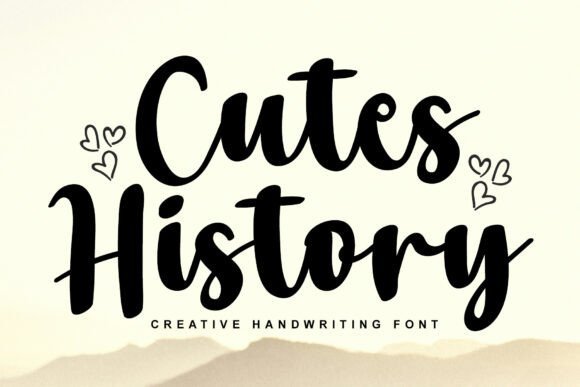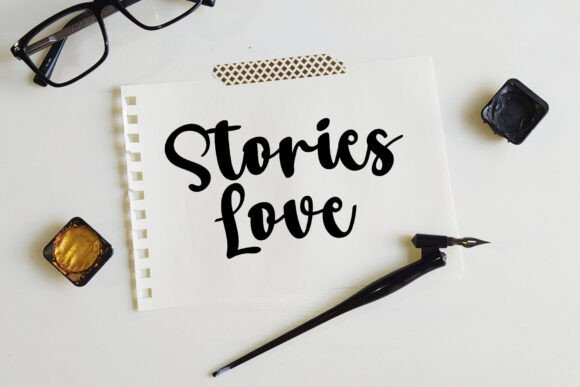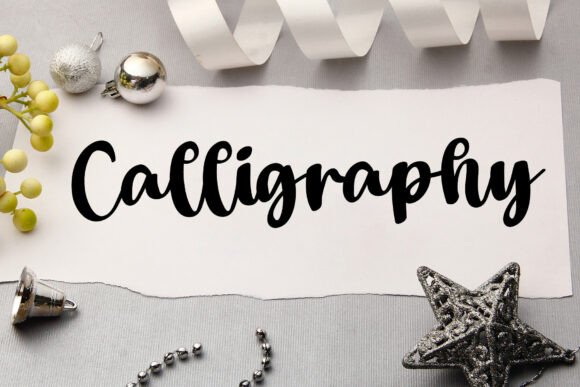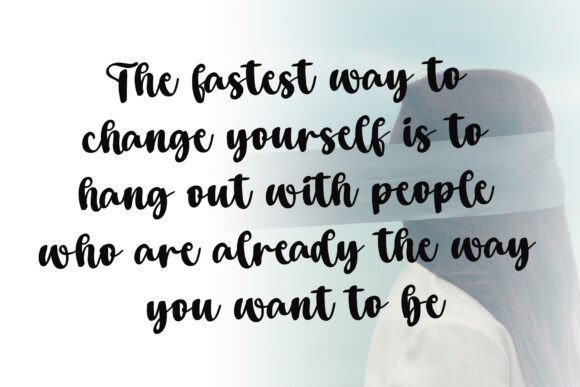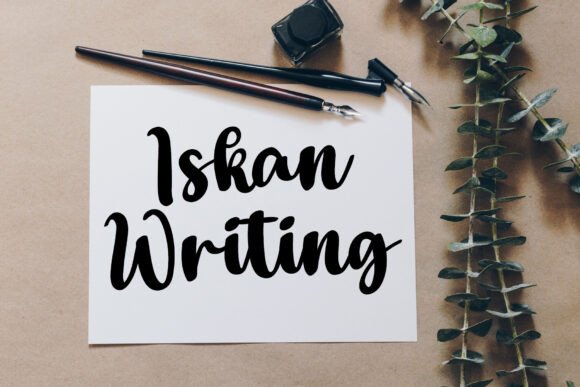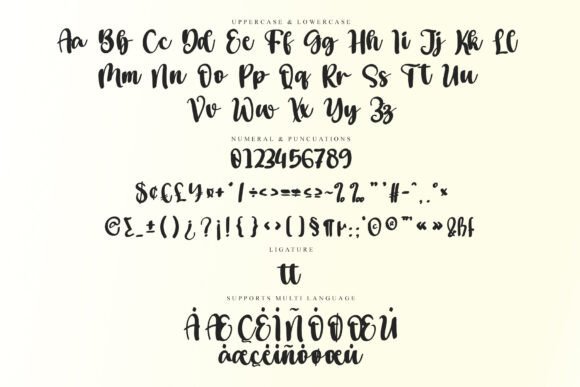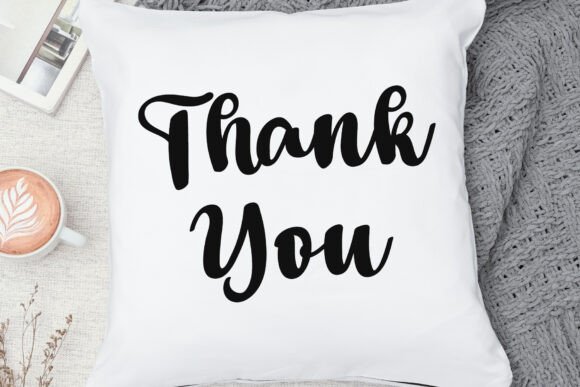
The Birth of a Design Icon: Unveiling the Cutes History Font
Have you ever sat at your desk, staring at a blank canvas, trying to conjure up the perfect font to match your creative vision? The struggle is real, but it’s moments like these that spark inspiration. You start doodling, experimenting with different styles and scripts, and suddenly, a masterpiece begins to take shape. It’s in these moments that we discover the magic of typography.
Enter the Cutes History Font, a game-changing addition to any designer’s toolkit. This bold, fluid font is designed to exude strength, elegance, and charisma, making it the perfect choice for logos, headlines, and branding elements that demand attention. Whether you’re a seasoned pro or a design newbie, the Cutes History Font is sure to elevate your creative projects and leave a lasting impression.
Cutes History Font Key Features
- Font Family: Cutes History Font is a unique, custom-designed font family with multiple styles and weights.
- Size and Resolution: Designed to be scalable, with optimal readability at font sizes ranging from 10 to 24 points, and resolutions up to 300 DPI.
- Unique Characteristics: Cutes History Font features a distinctive, hand-drawn aesthetic with intricate details and ornaments, making it perfect for historical and educational contexts.
- Language Support: Supports a wide range of languages, including Latin, Cyrillic, and Greek scripts, making it a versatile choice for international applications.
- Style Variations: Includes multiple styles, such as Regular, Italic, Bold, and Bold Italic, allowing for a range of visual effects and emphasis in your designs.
Cutes History Font Review
Overall, I think “Cutes History Font” is a fun and quirky font that could be great for specific projects, but it has some limitations that hold it back from being a go-to choice.
- The font’s playful and whimsical feel is perfect for projects that need a lighthearted touch.
- The varied letterforms and flourishes add visual interest and create a sense of depth.
- The font is well-suited for titles and headings, as it’s bold and eye-catching.
- The font’s readability suffers at smaller sizes, making it difficult to use for body text.
- The varying line heights and spacing can make it challenging to align text.
- The font’s uniqueness may not be suitable for projects that require a more traditional or formal look.
Overall, I think “Cutes History Font” is a solid choice for projects that need a touch of whimsy and personality. However, it’s not a font that I would recommend for everyday use or for projects that require a high level of readability and consistency.
Tips for Getting the Most Out of Cutes History Font
Use Cutes History Font for titles, headings, and emphasis in your designs.
Pair it with other fonts to create a visually appealing combination.
Cutes History Font is ideal for:
Children’s book illustrations
Wedding invitations
Graphic design projects
Branding and marketing materials
Alternatives to Cutes History Font
Playfair Display is an elegant and luxurious script font. It is ideal for use in titles, headings, and other high-impact design elements. This font features beautiful flourishes and is perfect for adding a touch of sophistication to your design.
Comparison to Cutes History Font: While Cutes History Font is more playful and cursive, Playfair Display is more formal and luxurious. Playfair Display is a better choice for designs that require a touch of elegance and sophistication.
Lobster is a bold and modern script font. It is perfect for use in titles, headings, and other design elements where you want to make a statement. This font features a unique, handwritten feel that is sure to grab attention.
Comparison to Cutes History Font: While Cutes History Font is more cursive and playful, Lobster is bolder and more modern. Lobster is a better choice for designs that require a bold and eye-catching font.
Great Vibes is a beautiful and elegant script font. It is perfect for use in titles, headings, and other design elements where you want to add a touch of sophistication and elegance. This font features a unique, handwritten feel that is sure to impress.